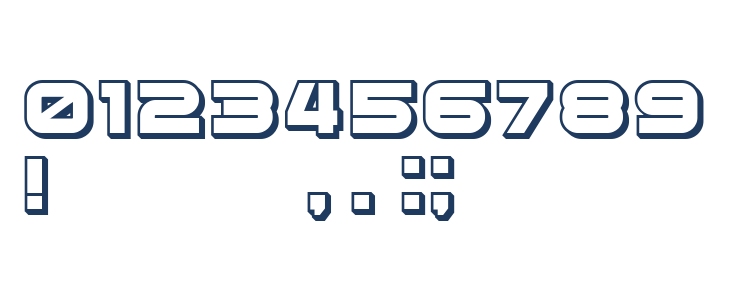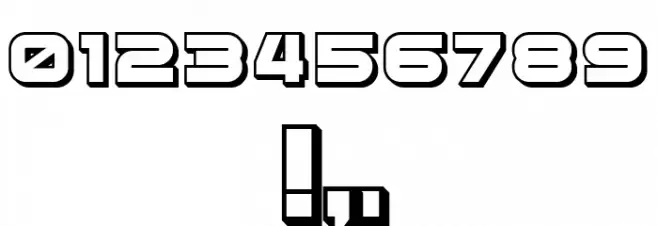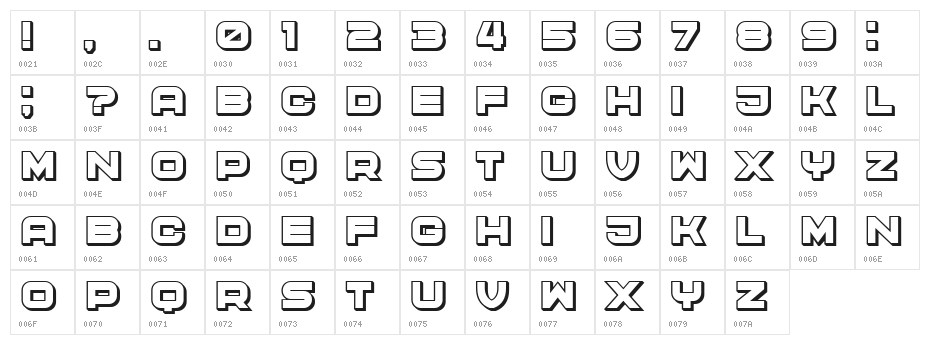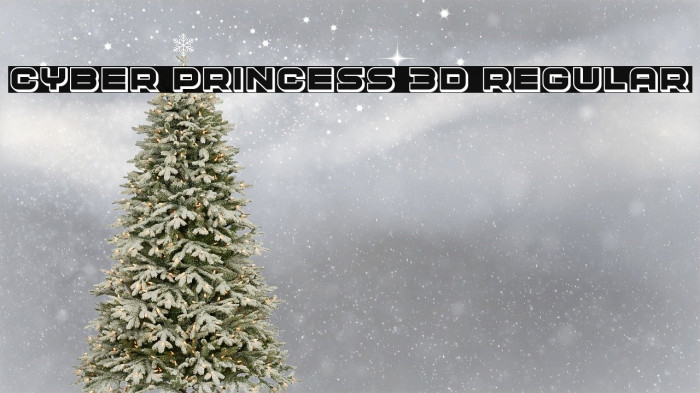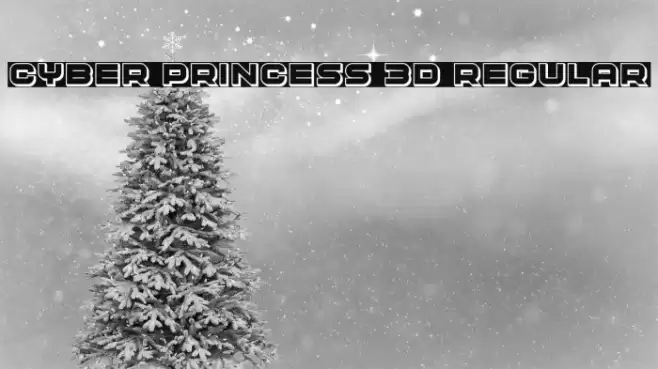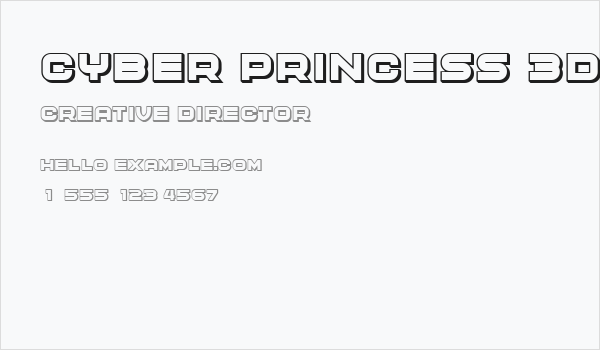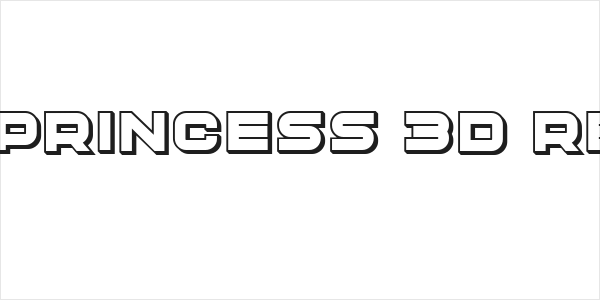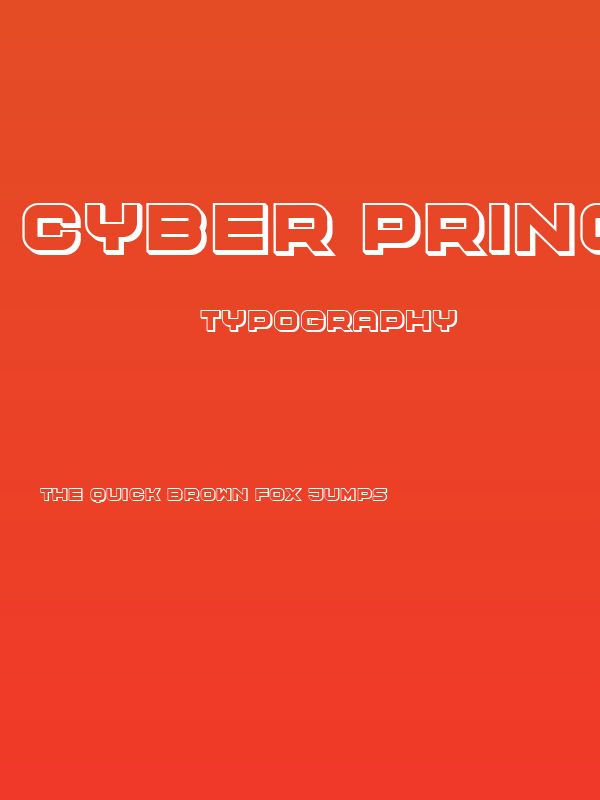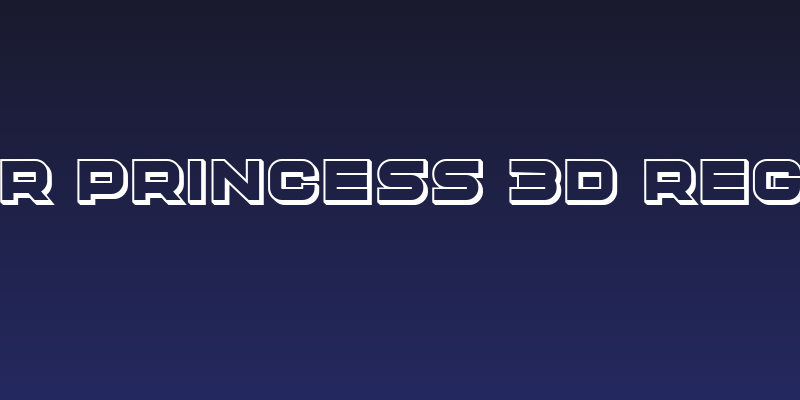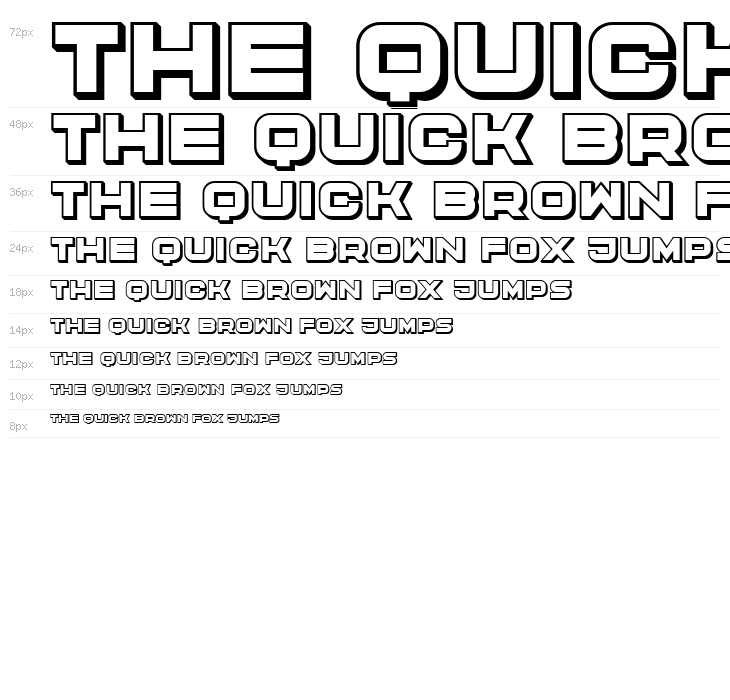
Cyber Princess 3D Regular Font
Cyber Princess 3D Regular Description
This font features a bold, futuristic design with a 3D effect that gives it a unique, standout appearance. The characters are outlined with a thick border, creating a sense of depth and dimension. The geometric shapes and clean lines contribute to its modern and tech-inspired aesthetic. Each letter is crafted with precision, maintaining a consistent width and height across the set. The numbers and special characters follow the same design principles, ensuring uniformity throughout. This font is ideal for projects that require a strong visual impact and a contemporary feel.
| Proposed Projects | Ideal for tech-related branding, video game titles, sci-fi movie posters, and digital artwork. |